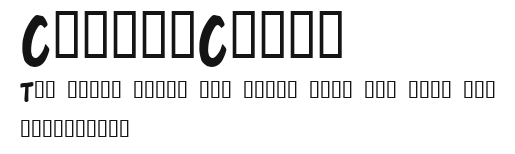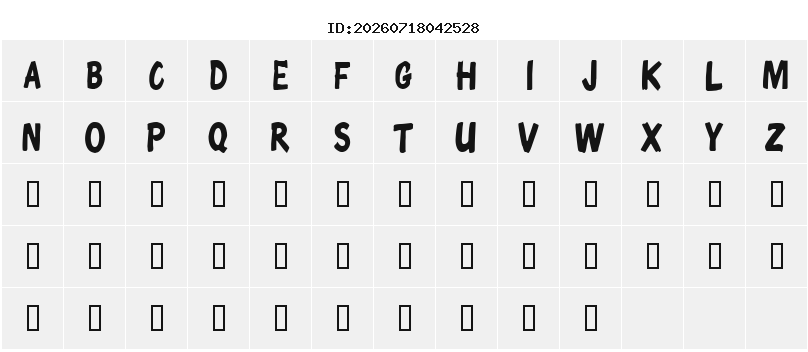
ChunkyComix Preview
• Font Name: ChunkyComix
• Font Style: SemiBold
• Font ID: Macromedia Fontographer 4.1 ChunkyComix SemiBold
• Full Font Name: ChunkyComix SemiBold
• Version: Macromedia Fontographer 4.1 8/14/98
• PostScript Name: ChunkyComixSemiBold
• Character Count: 31
About ChunkyComix.ttf
ChunkyComix.ttf is a modern, elegant sans-serif font designed for ultimate readability and visual harmony. Perfect for branding, headlines, web design, and print materials.